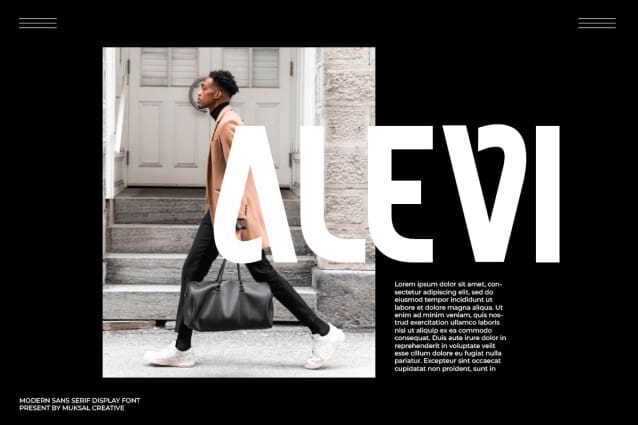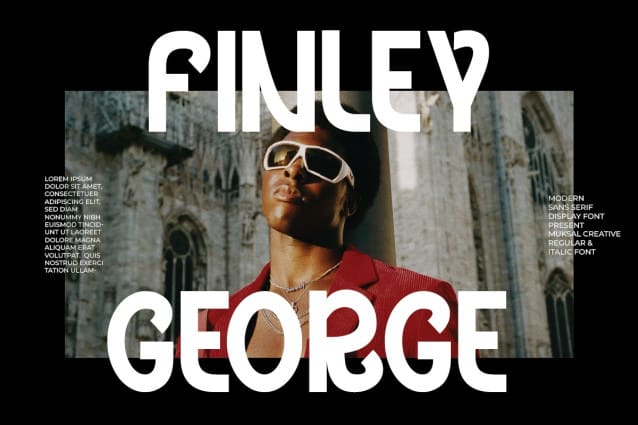
Finley George Font
Finley George Font is a sleek, modern sans-serif display font designed to enhance any visual project with its clean lines and contemporary style. This versatile typeface is suitable for various design applications, offering a bold and sophisticated look that stands out in any setting.
Modern Aesthetic: Combines geometric precision with elegance, ideal for high-end branding and cutting-edge designs. Sans-Serif Simplicity: Ensures clarity and readability. Versatile Display: Perfect for large text applications like headlines, posters, and signage. High Contrast: Features dynamic contrast between thick and thin strokes for visual appeal. Applications:
Logo Design: Creates memorable and professional logos. Branding: Enhances identity for fashion labels, tech startups, and luxury products. Product Packaging: Adds sophistication and modernity to packaging. Marketing Materials: Ensures polished and contemporary look for business cards and brochures. Web and Mobile Design: Ensures readability and impact across digital platforms.